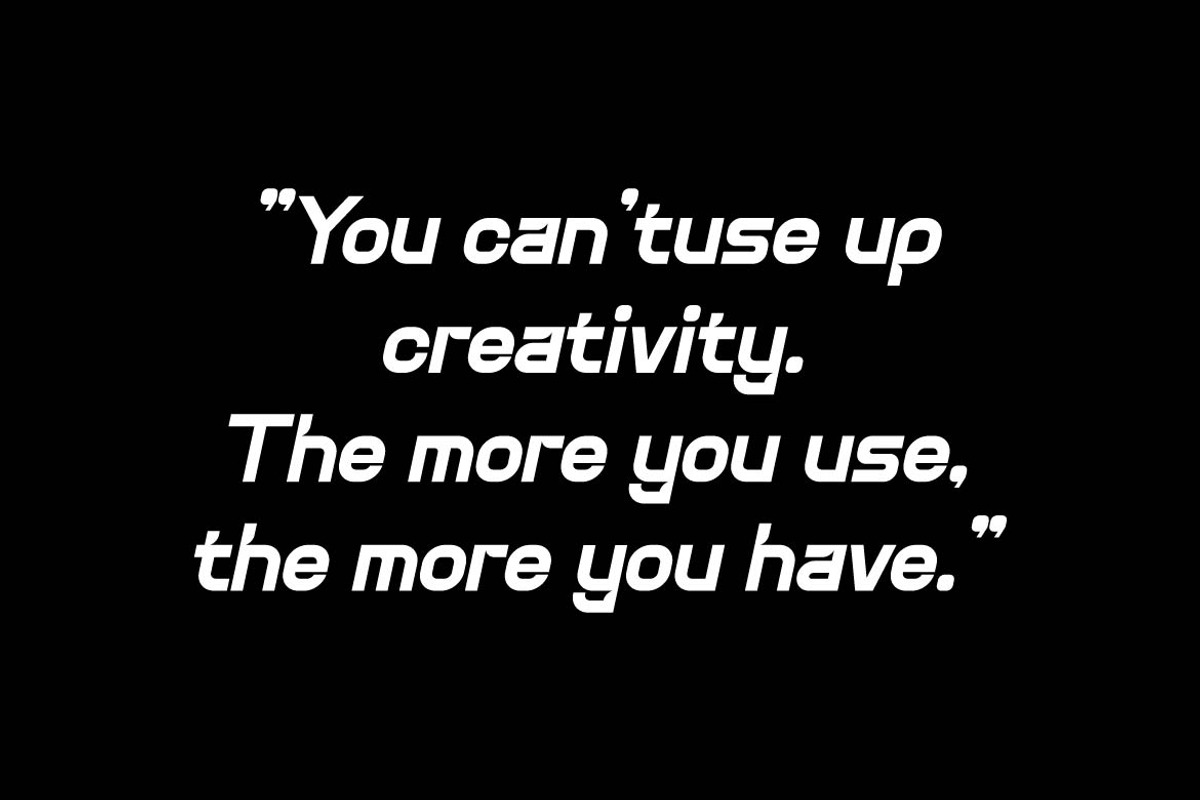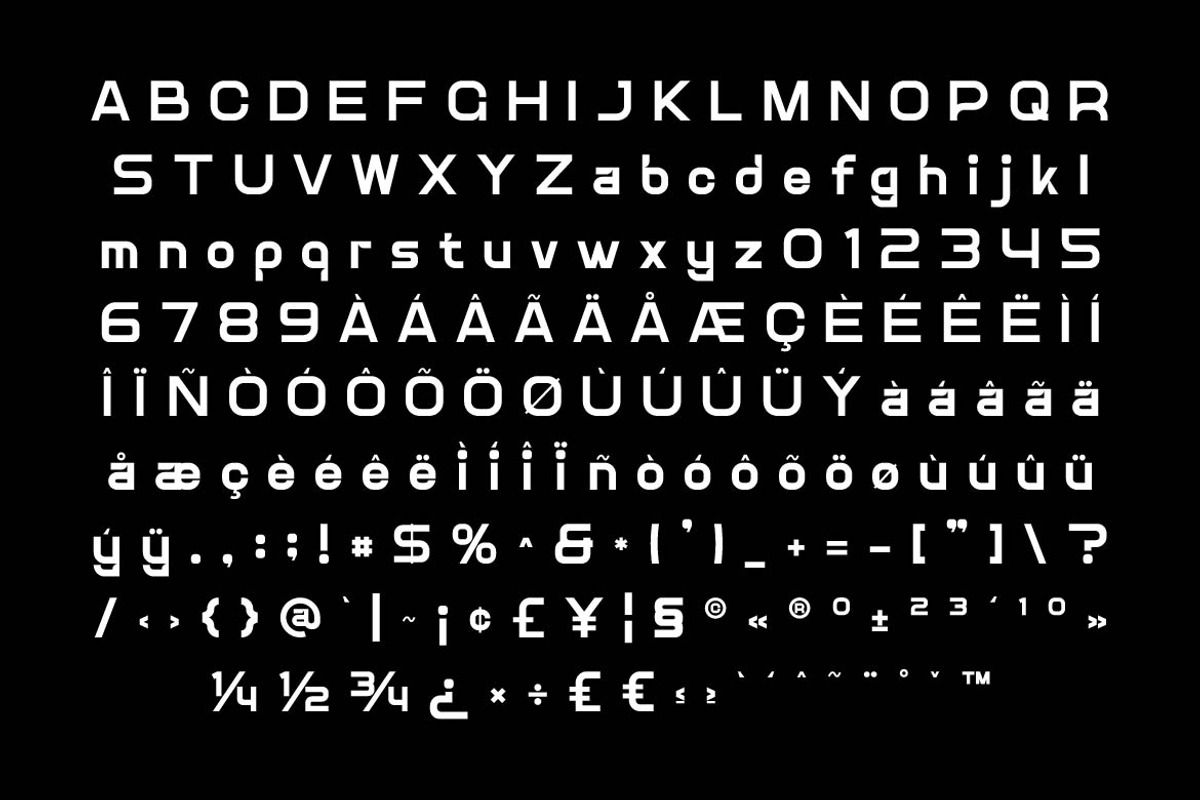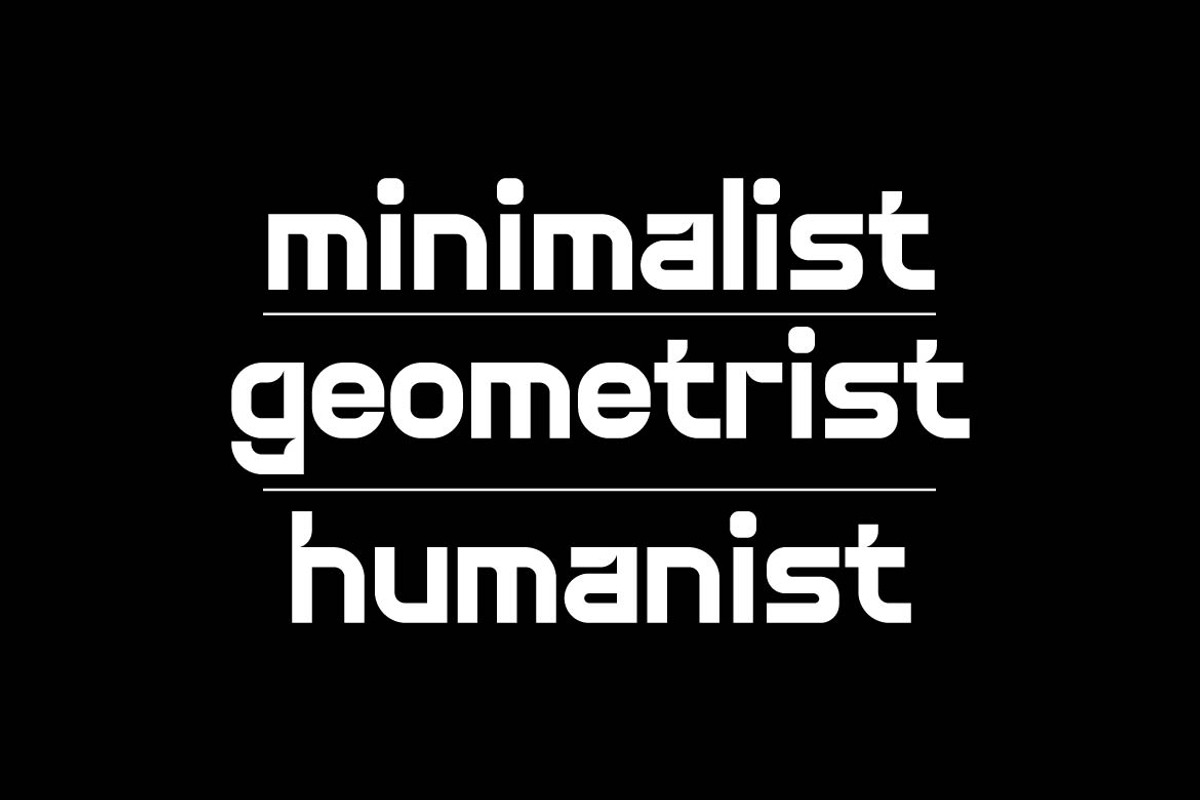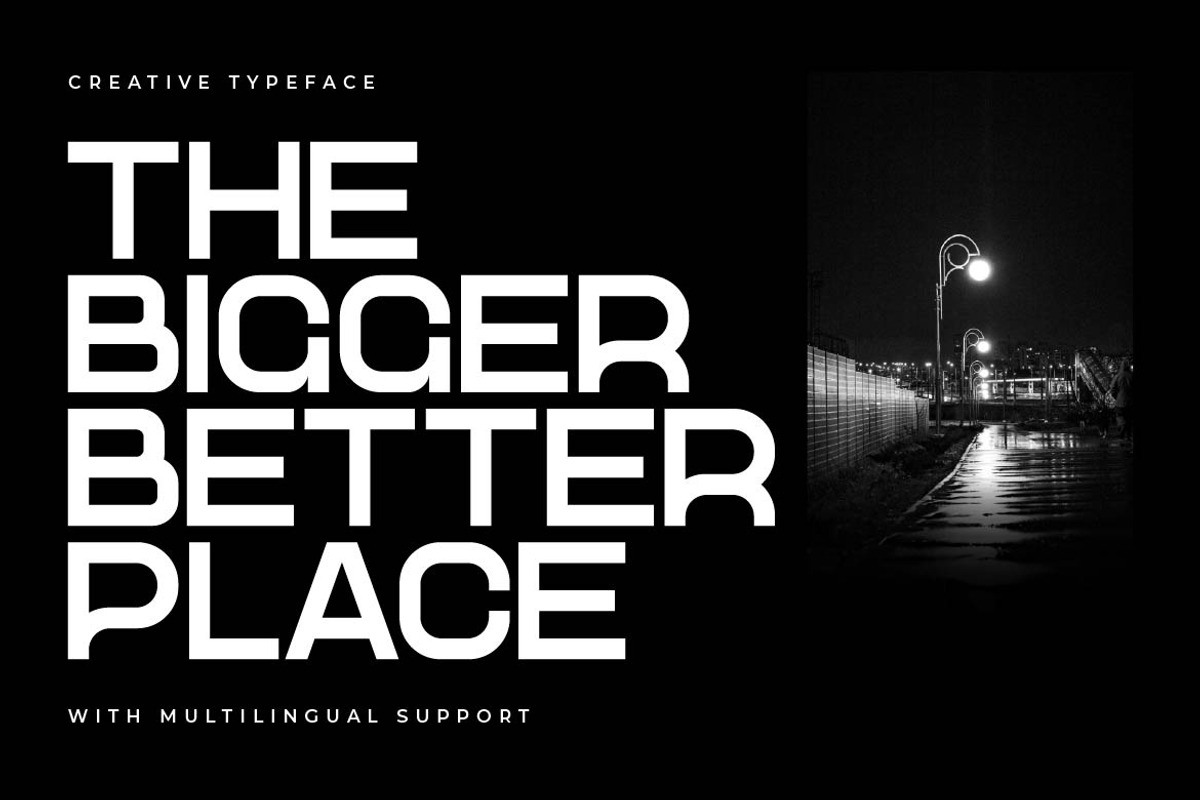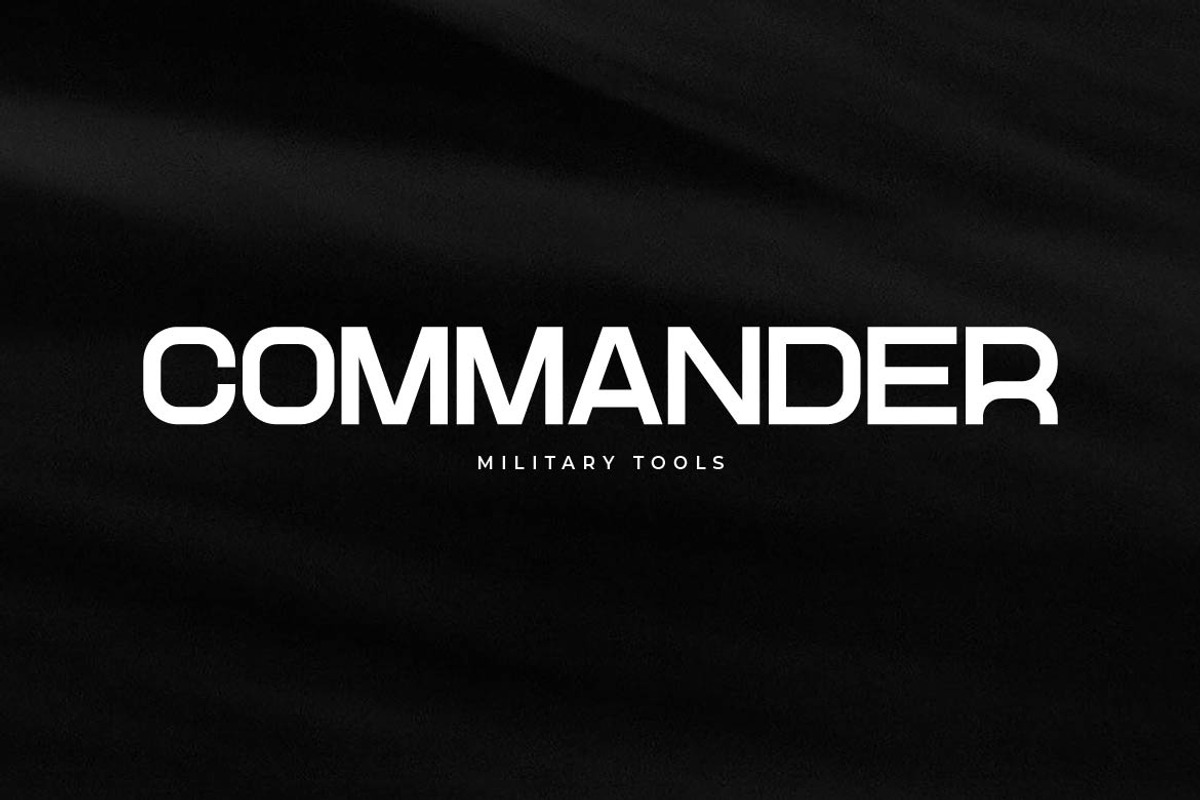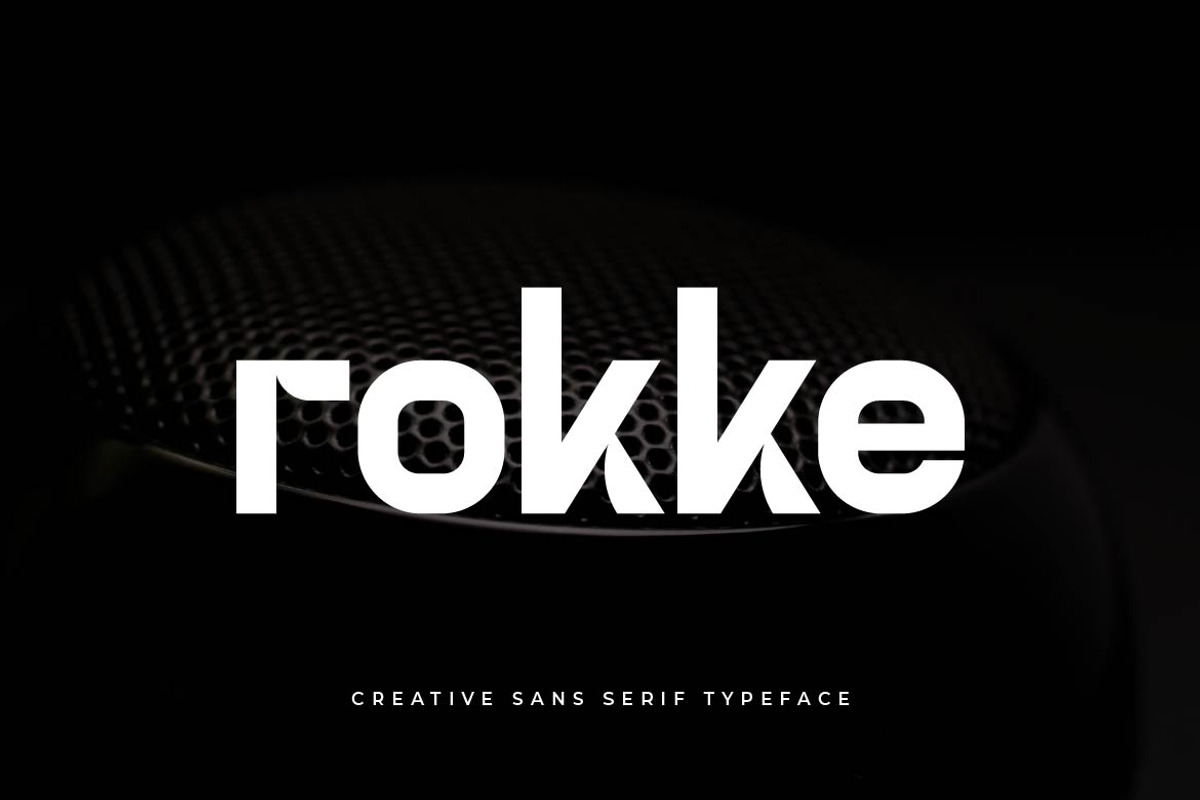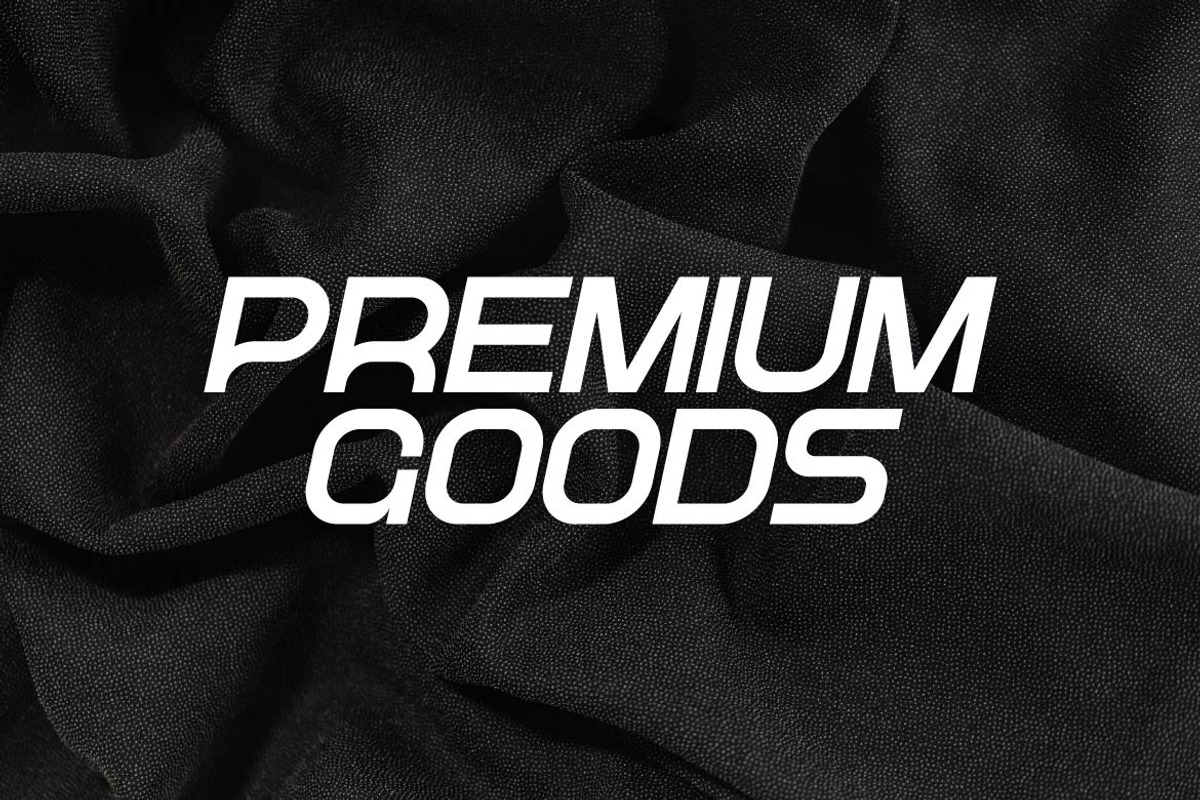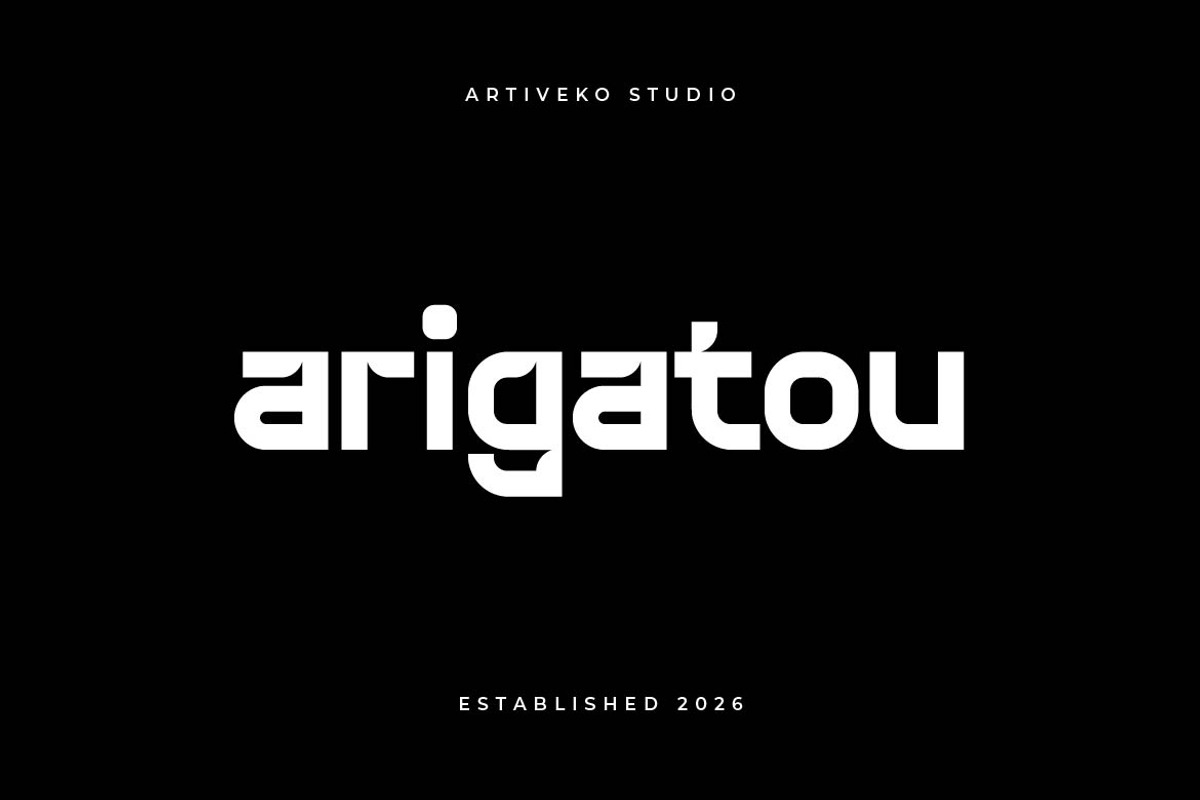
Rokke – Edgy Sans Font
Rokke is a modern creative sans serif typeface designed with bold character and contemporary style. Featuring clean structure with distinctive details, Rokke brings a fresh and slightly edgy personality to modern design.